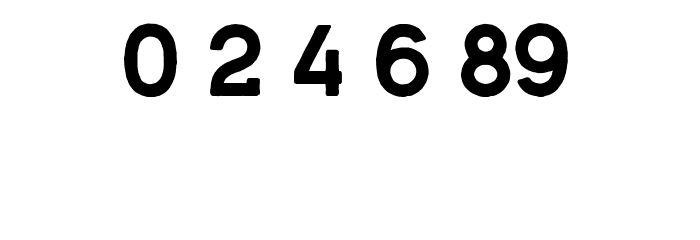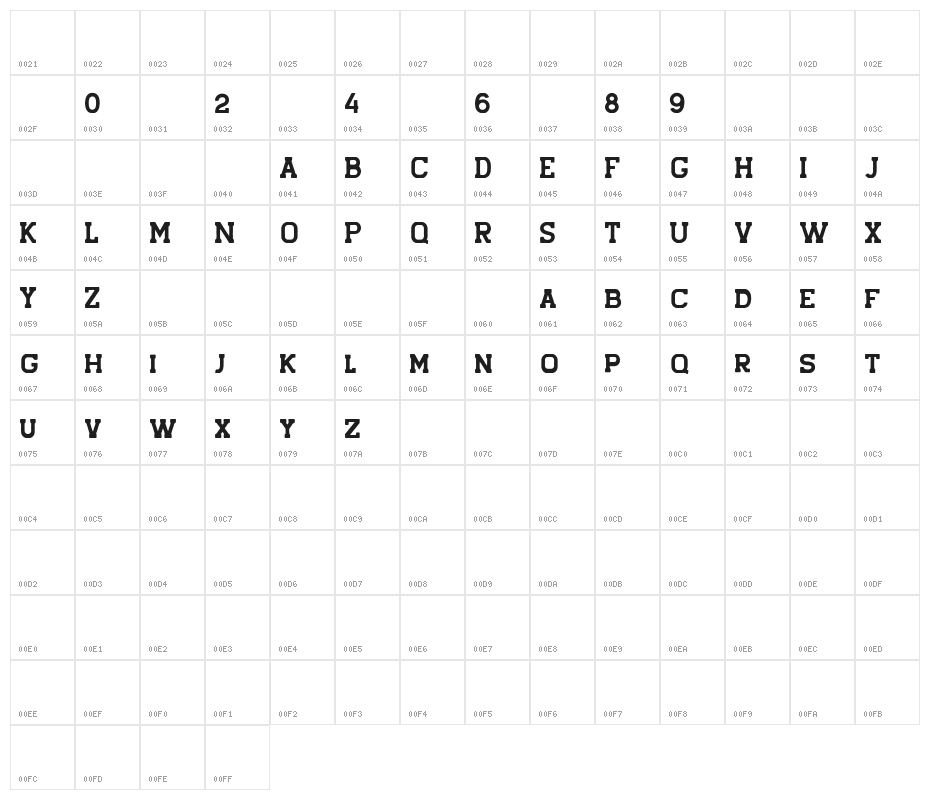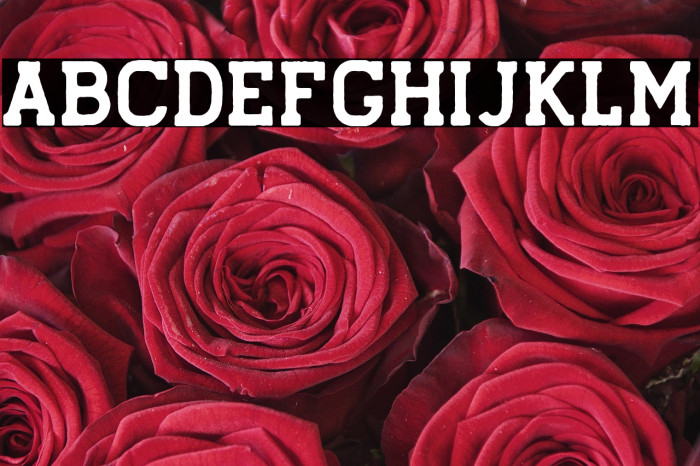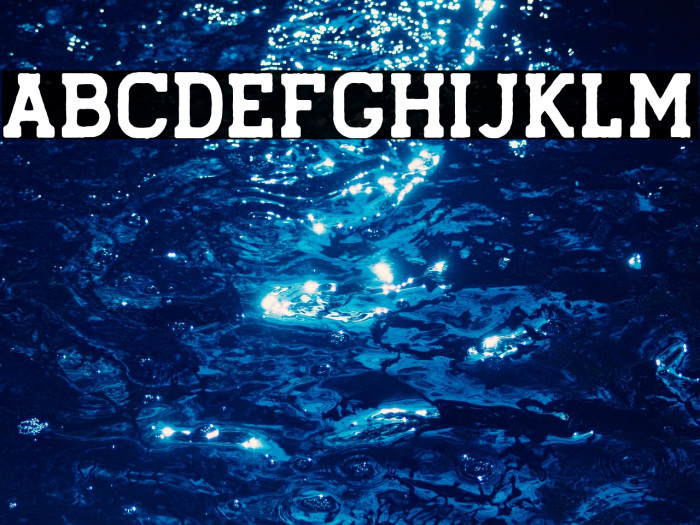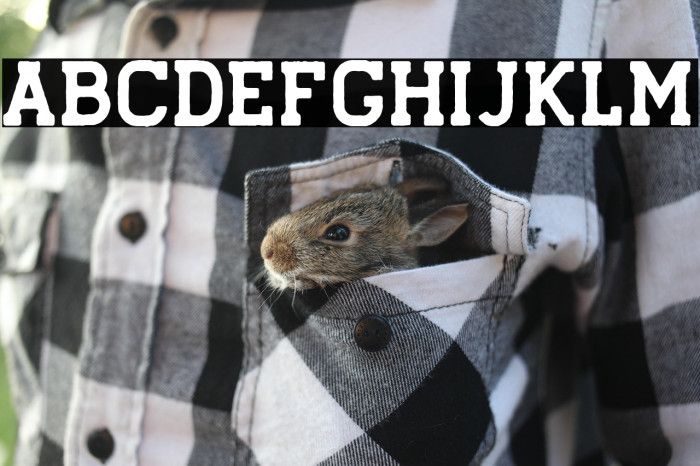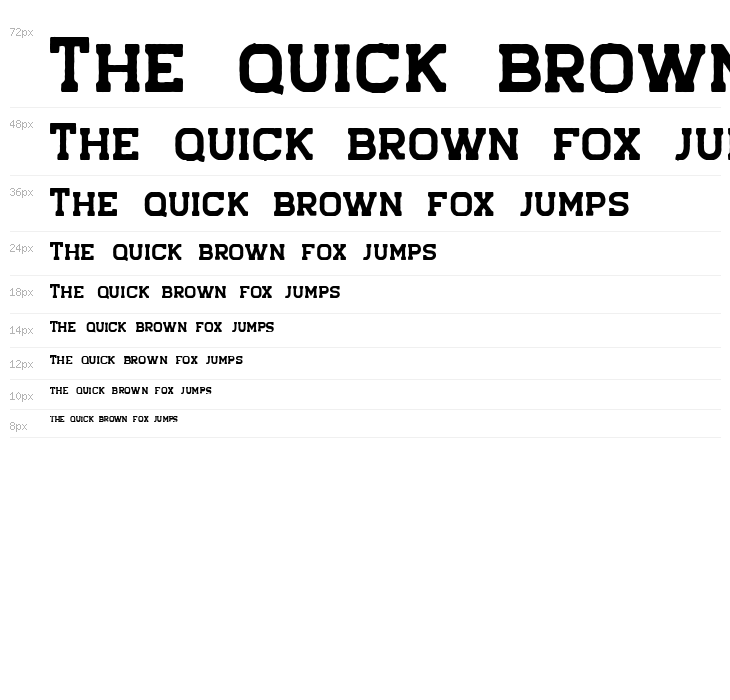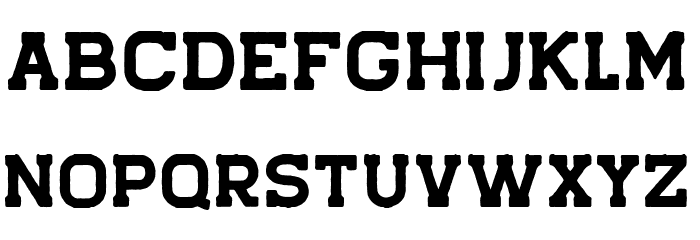
HanselRough Font
HanselRough Description
This font features a bold and rugged design, characterized by its strong, blocky letters with a slightly distressed texture. The uppercase letters are prominent and assertive, making them ideal for attention-grabbing headlines. The numbers share the same robust style, ensuring consistency across different types of content. The font's rough edges and bold strokes give it a vintage, handcrafted feel, reminiscent of old woodblock prints or letterpress designs. This unique texture adds depth and character, making it suitable for projects that require a touch of authenticity and nostalgia.
| Proposed Projects | Ideal for posters, branding, packaging, and any design needing a vintage or rustic touch. |